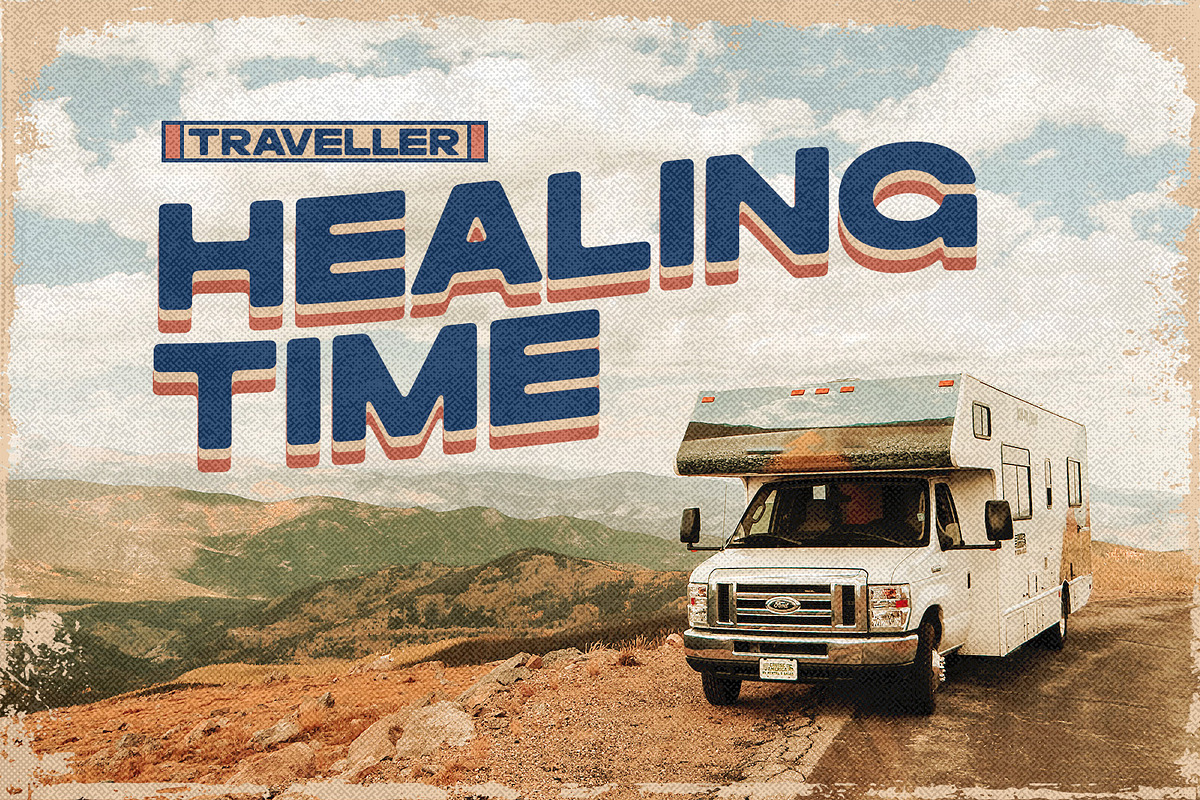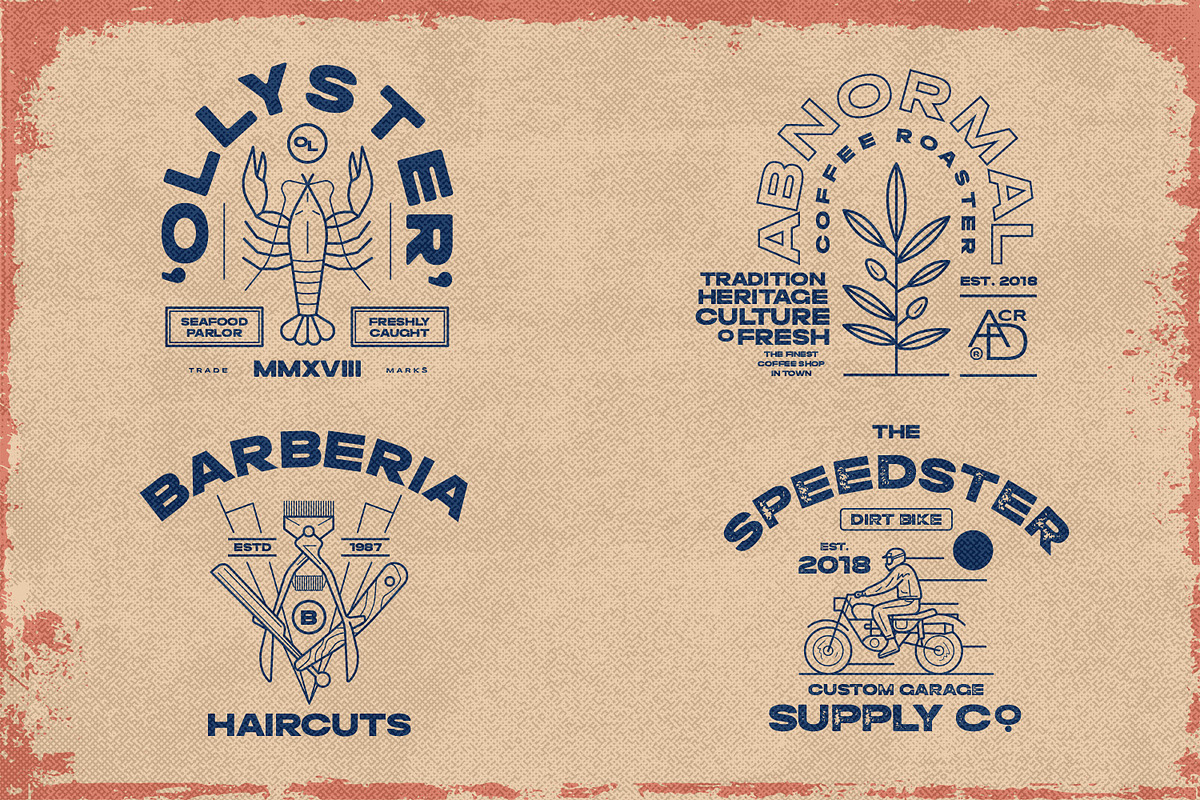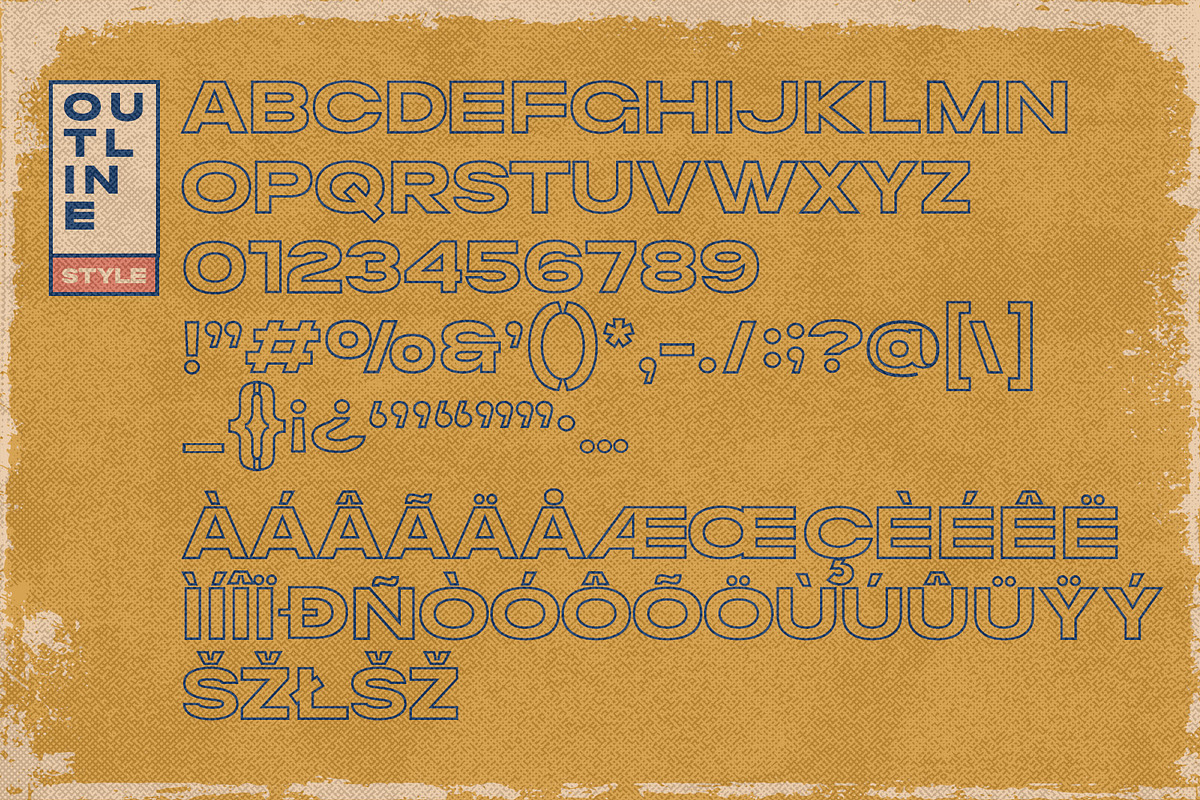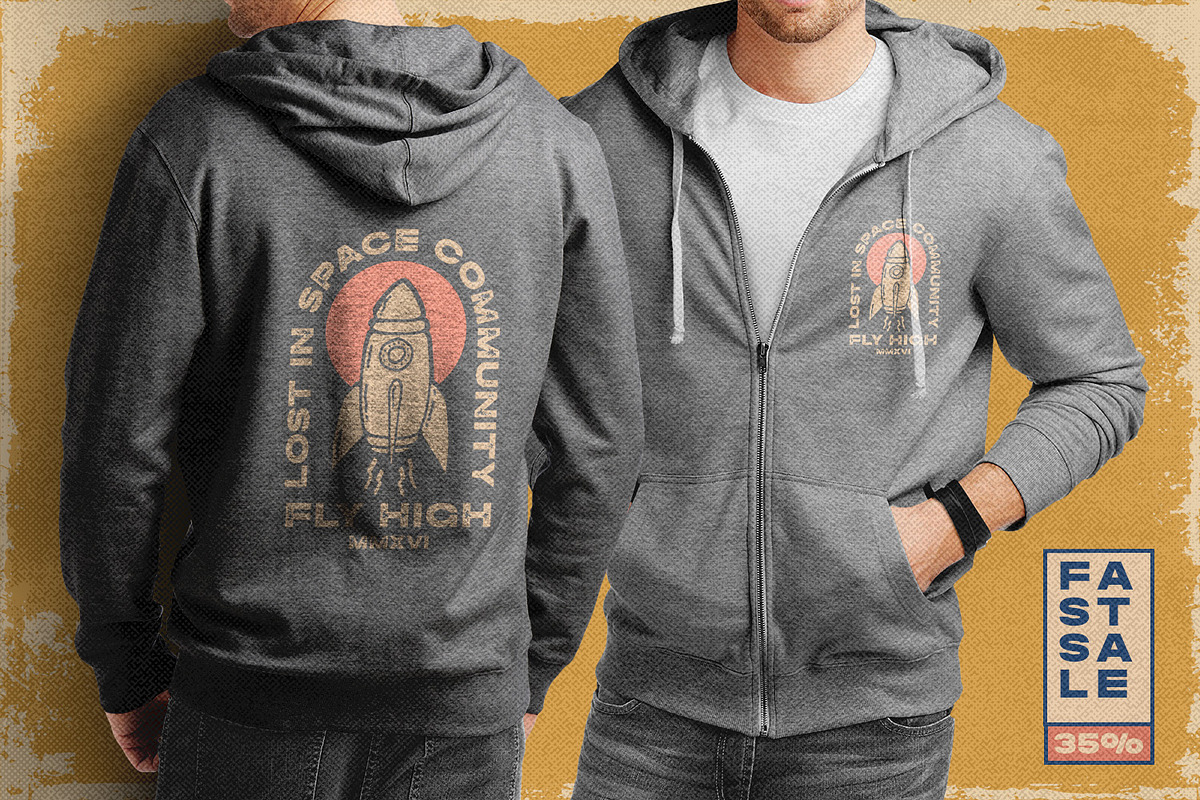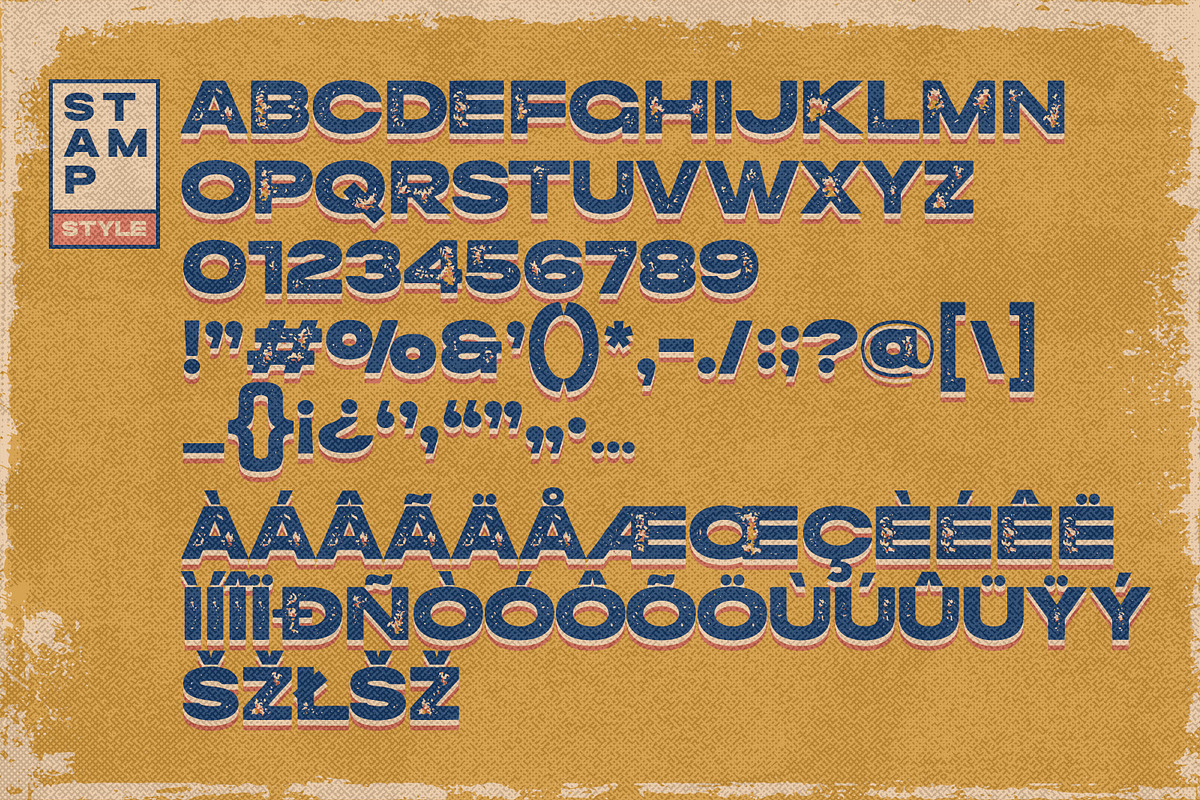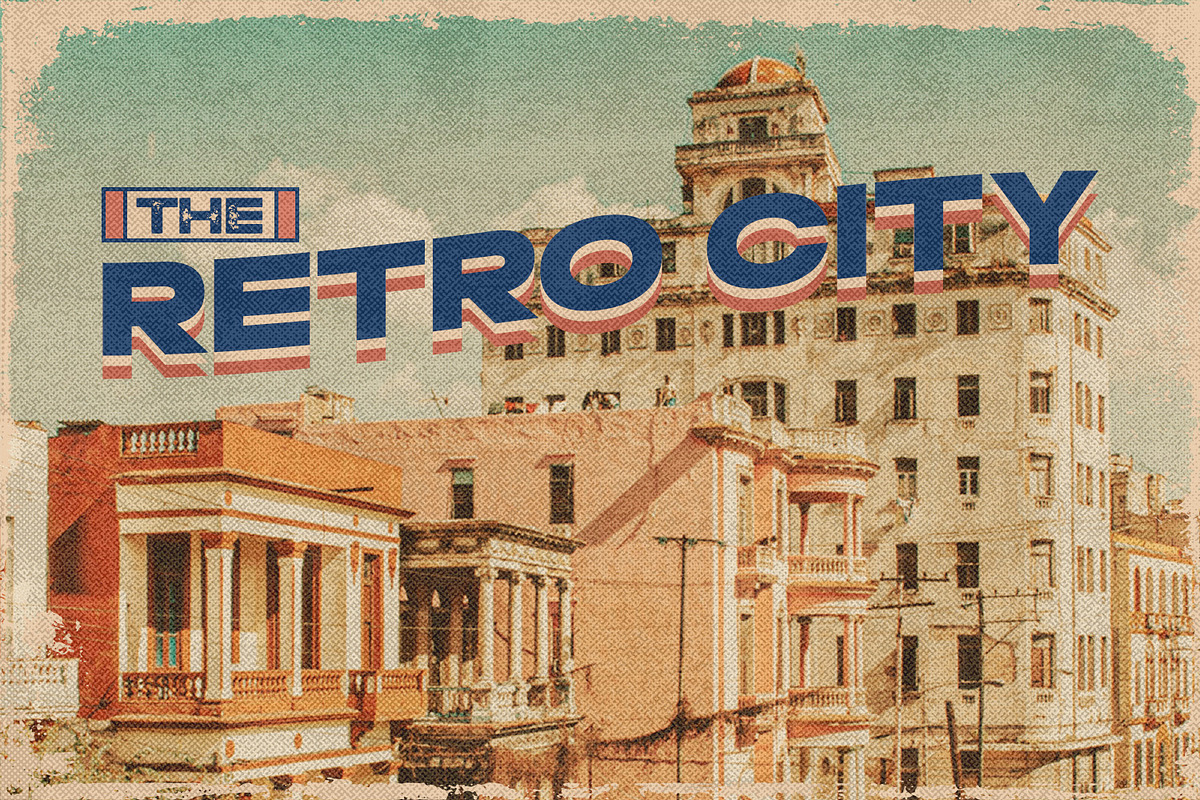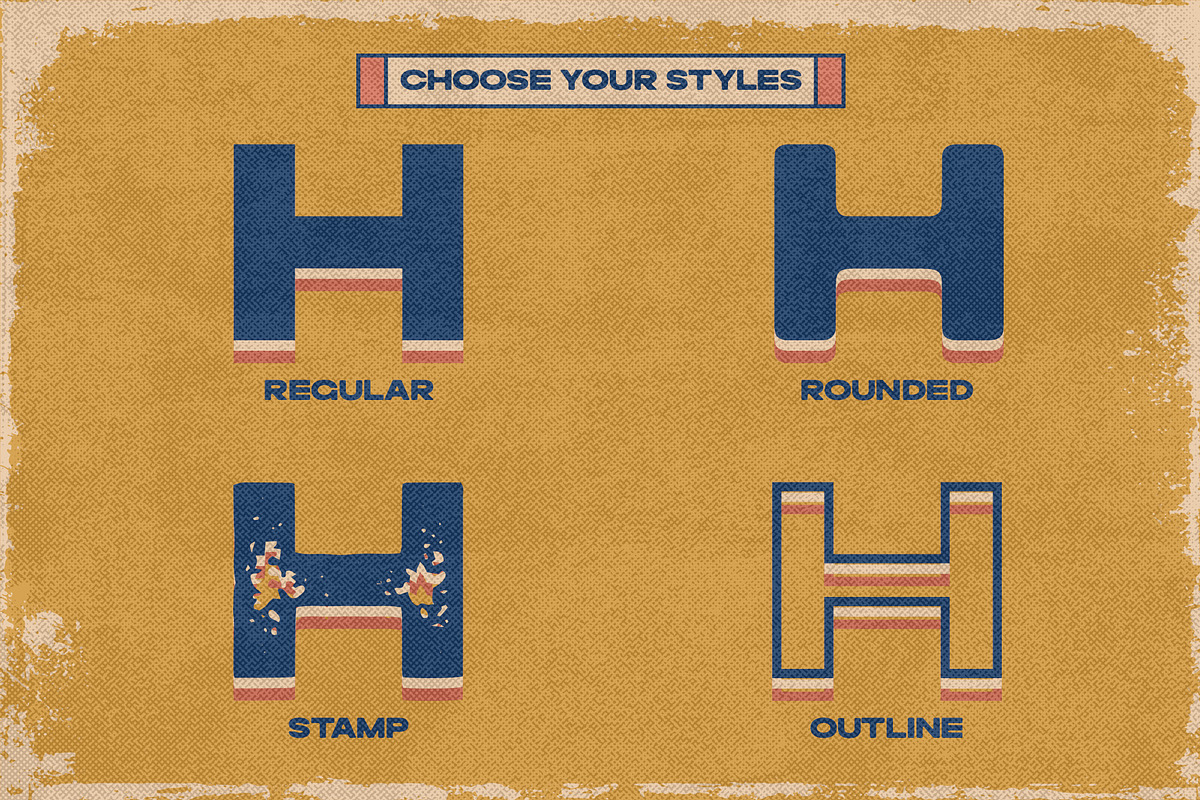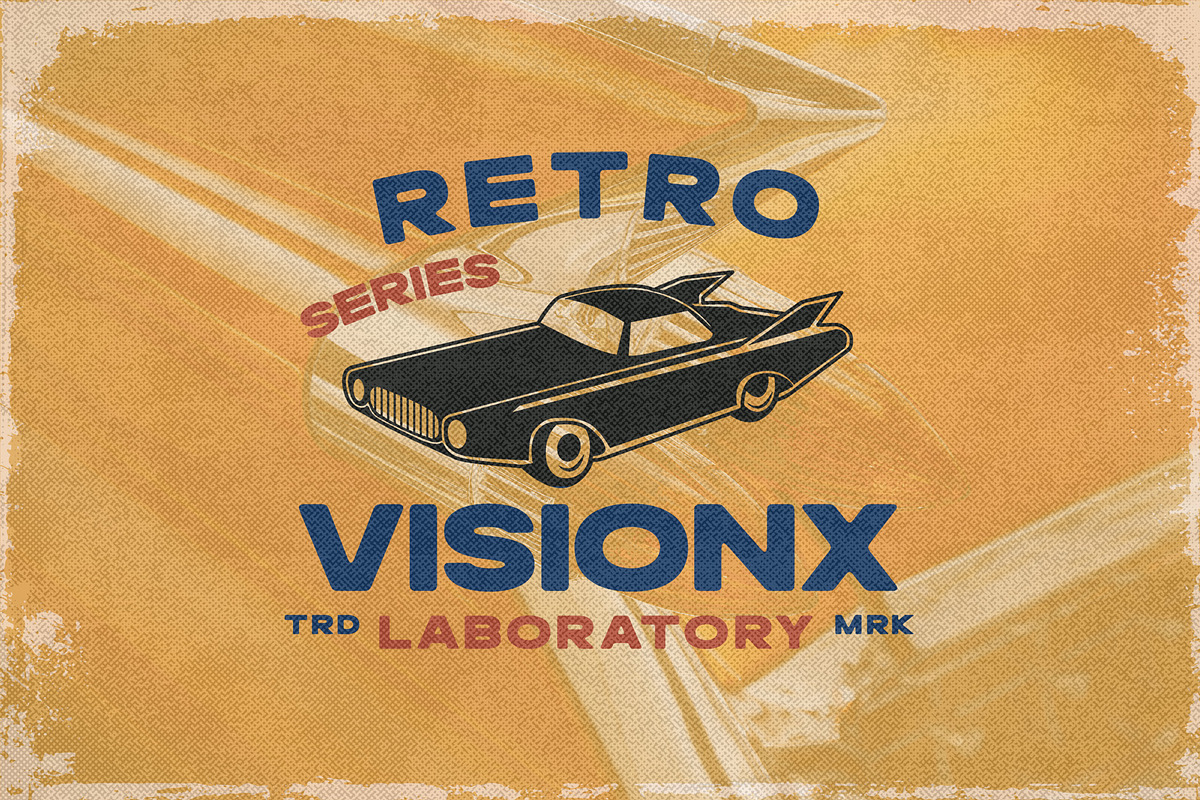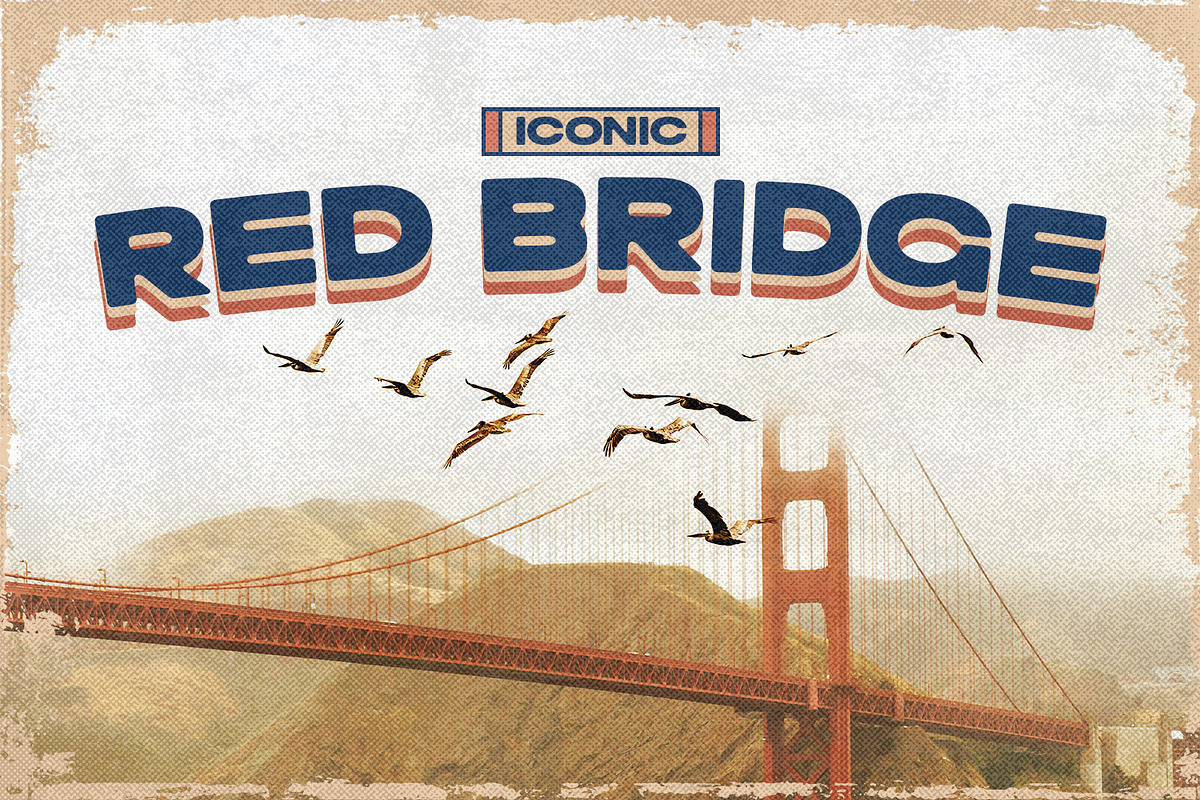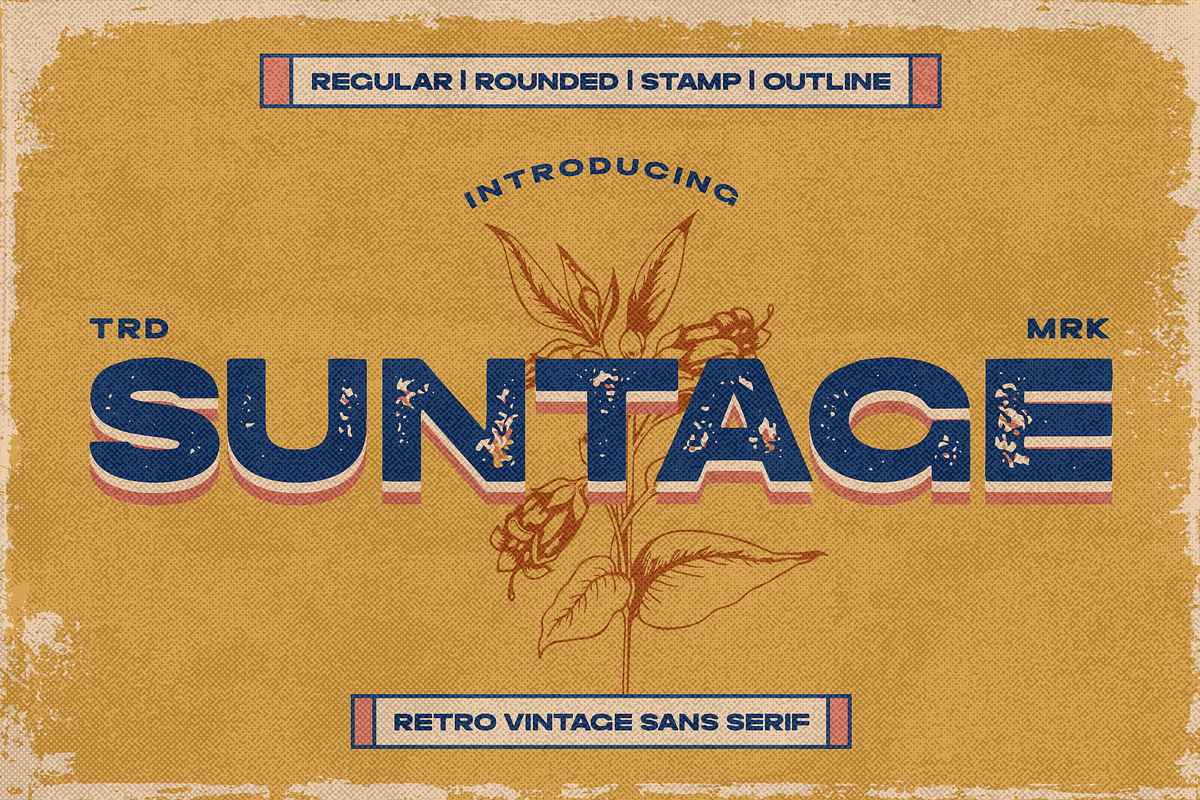
Suntage - Retro Display Sans
Introducing our latest called Suntage Retro Display Sans with 4 Style vintage taste can make your logotype become more interesting. inspired by the Retro Poster arts and architecture movement
Suntage fonts is perfect for your project and allows you to create designs, headlines, posters, logos, badges, and more that are beautiful. It is also best used for posts, logos, posters, certificates, labels and more.